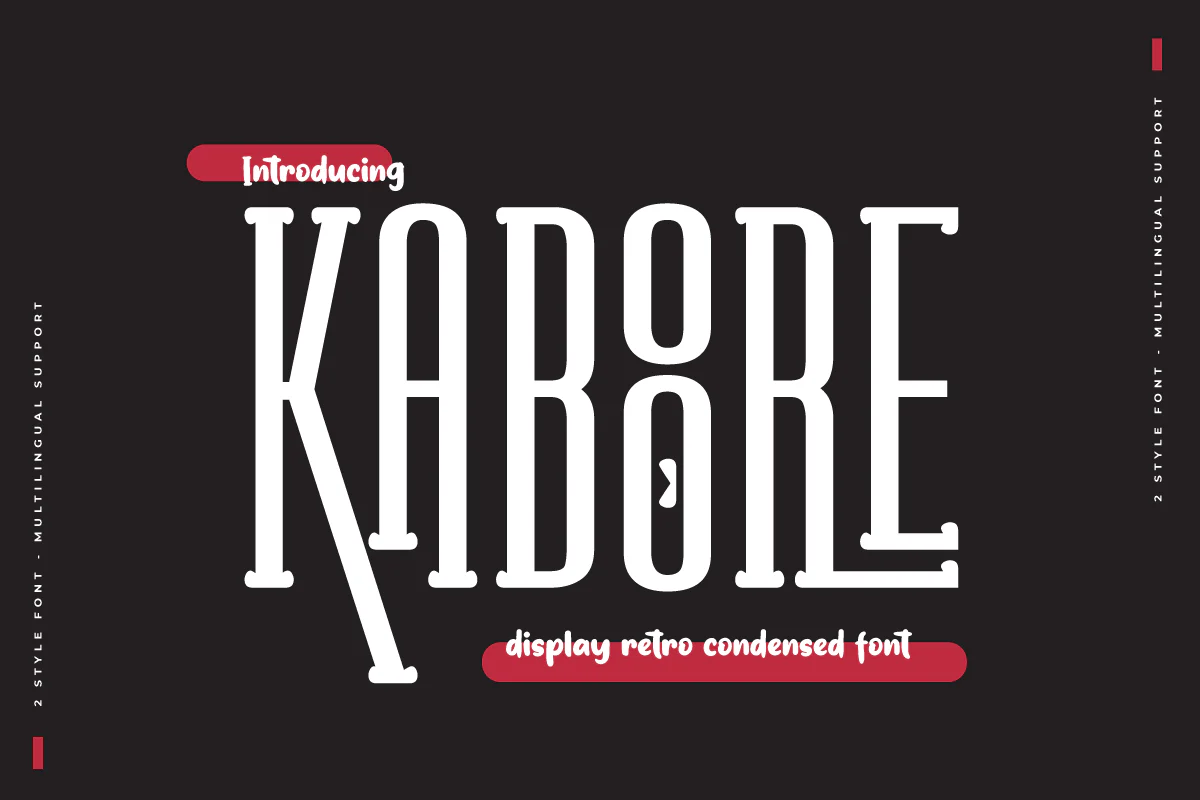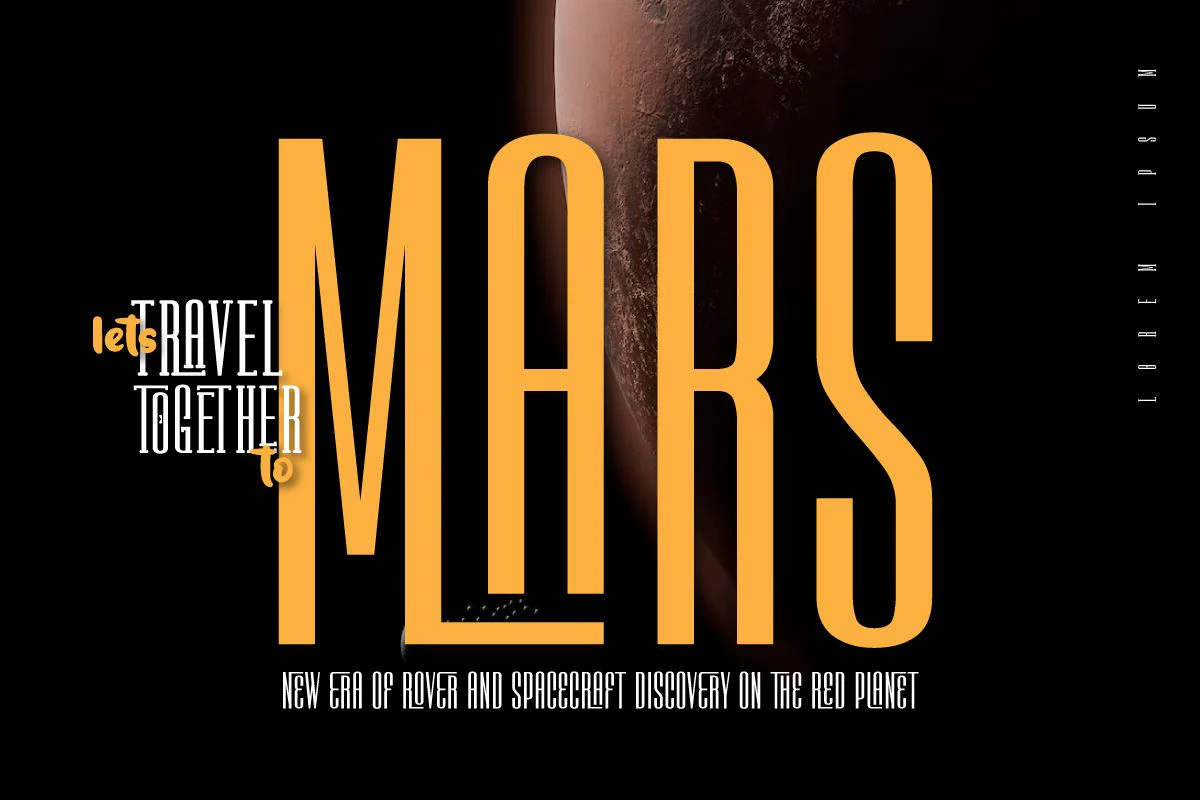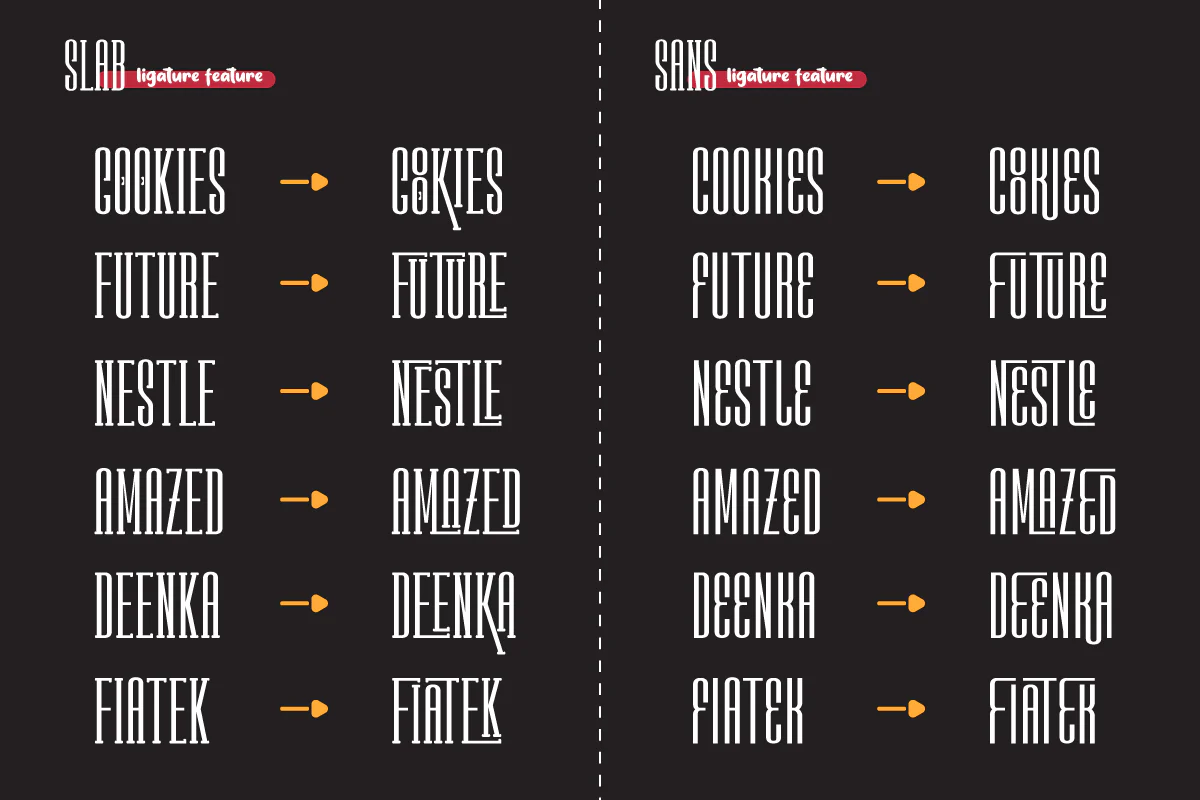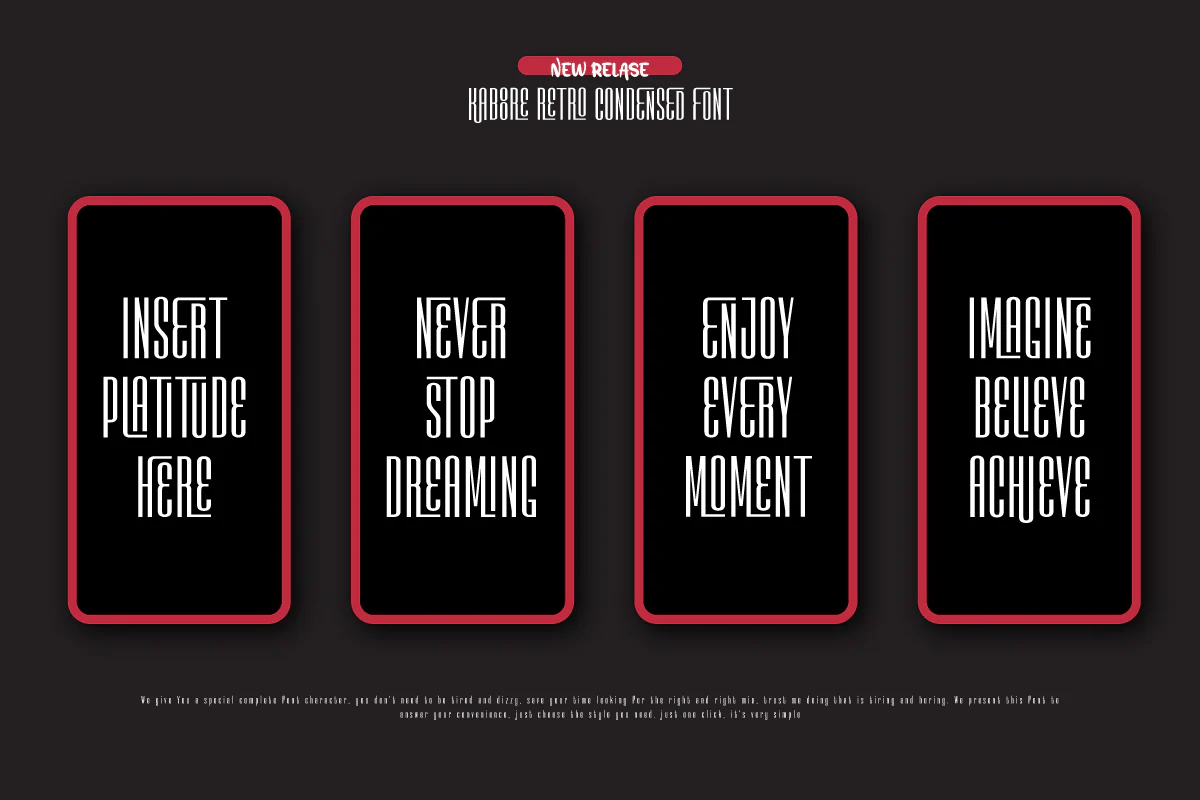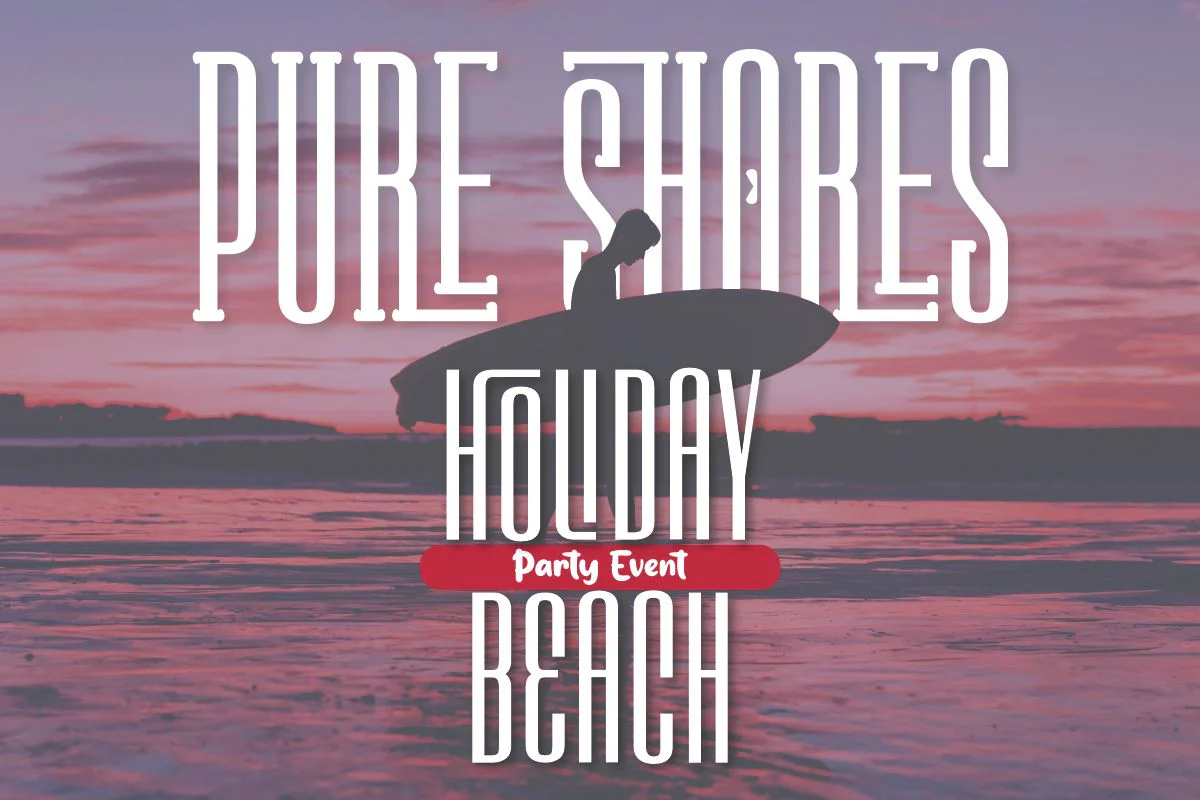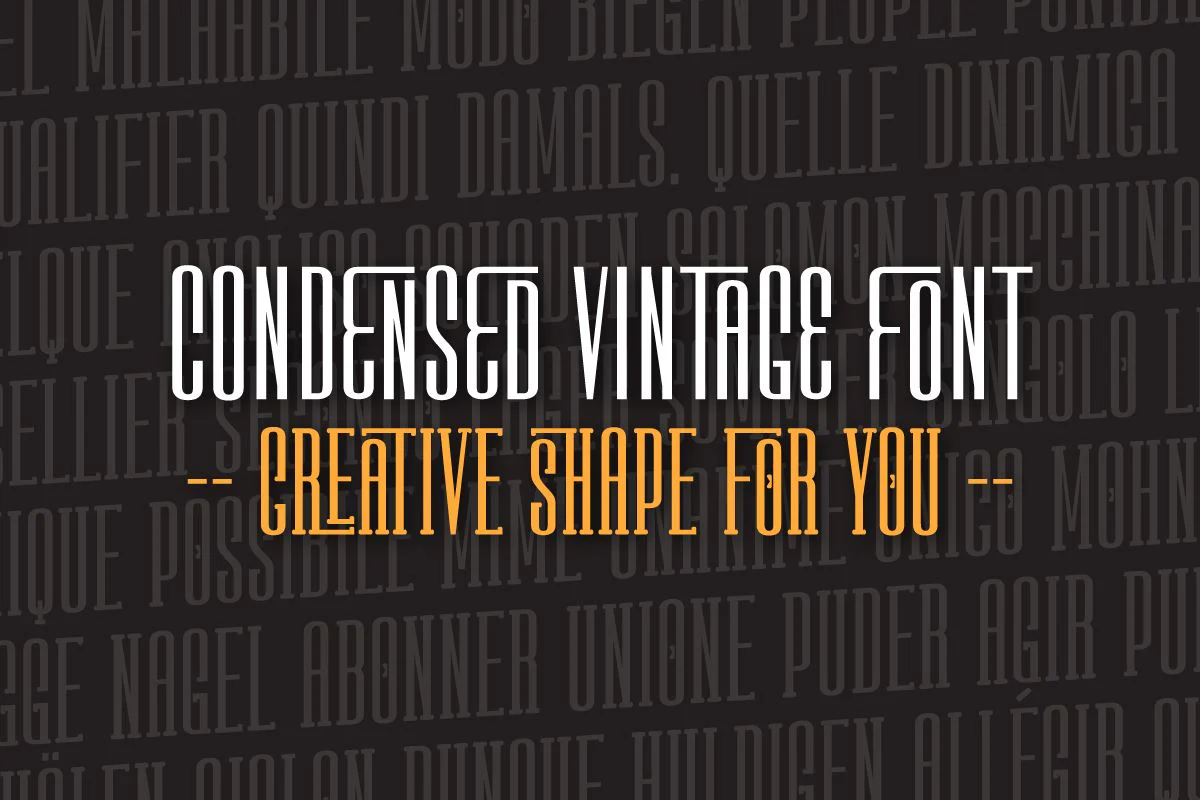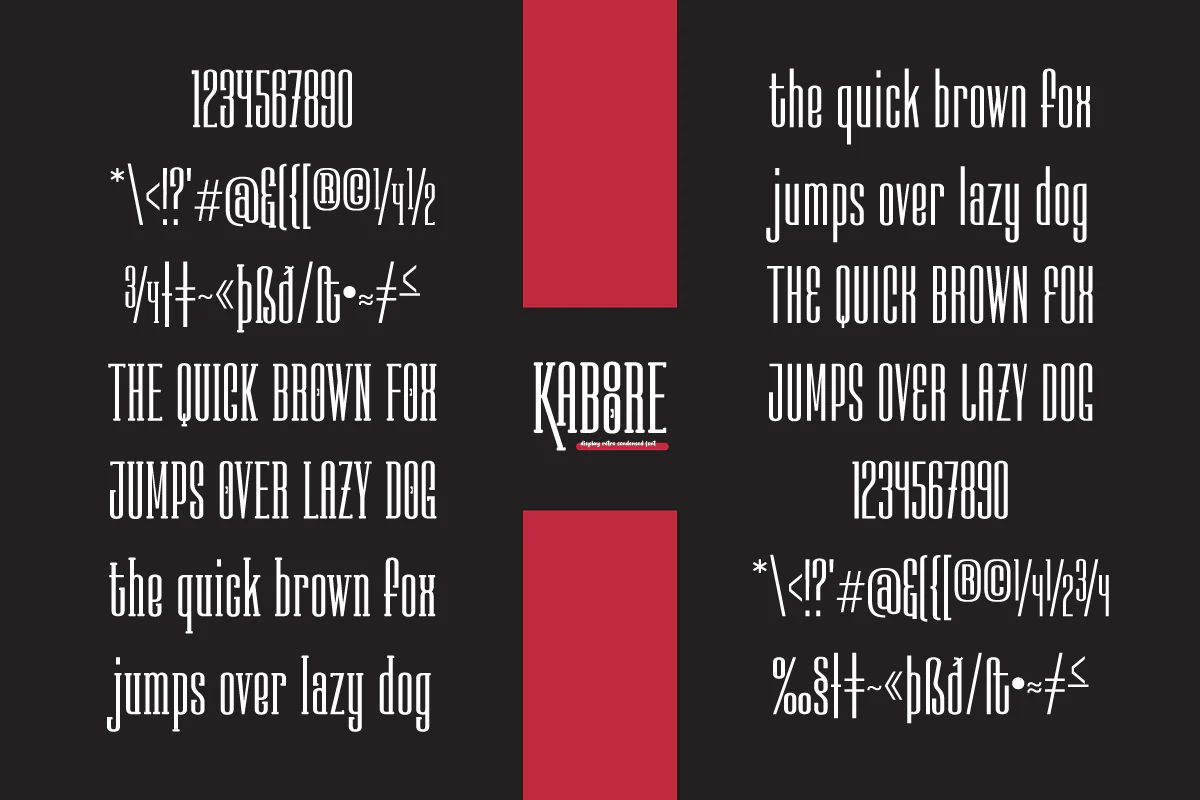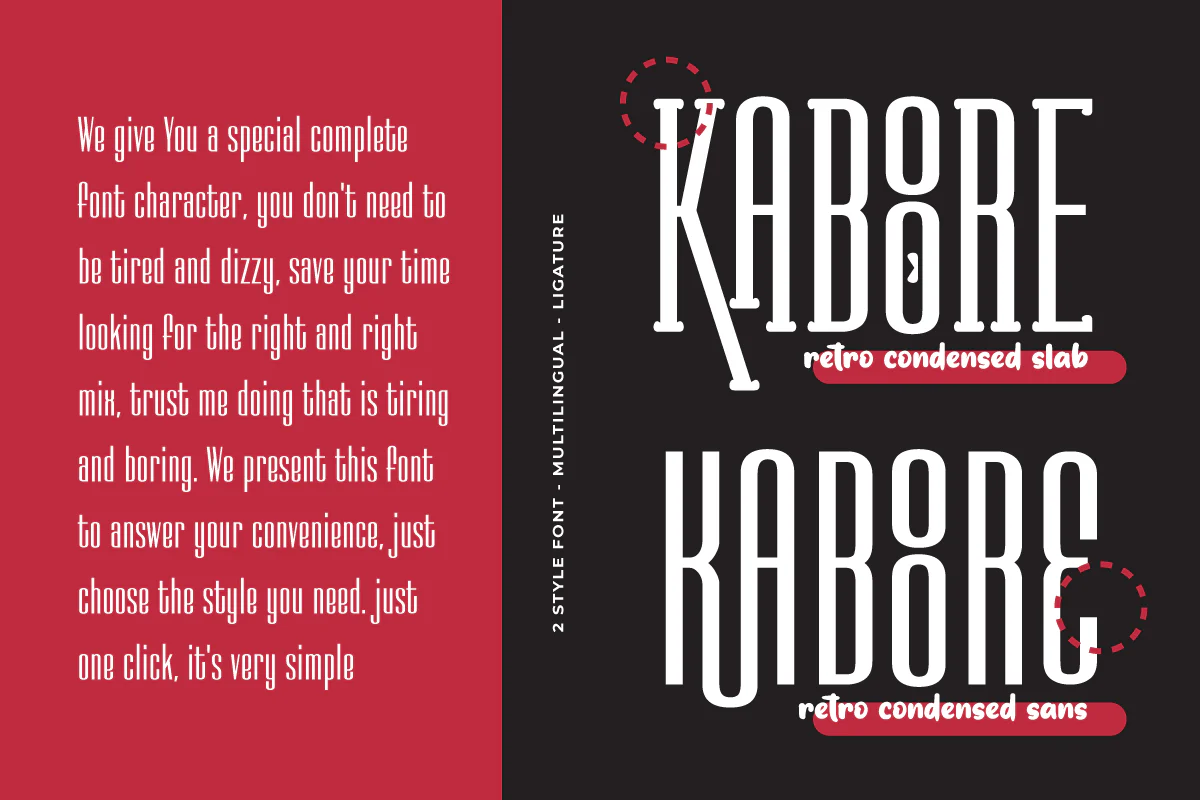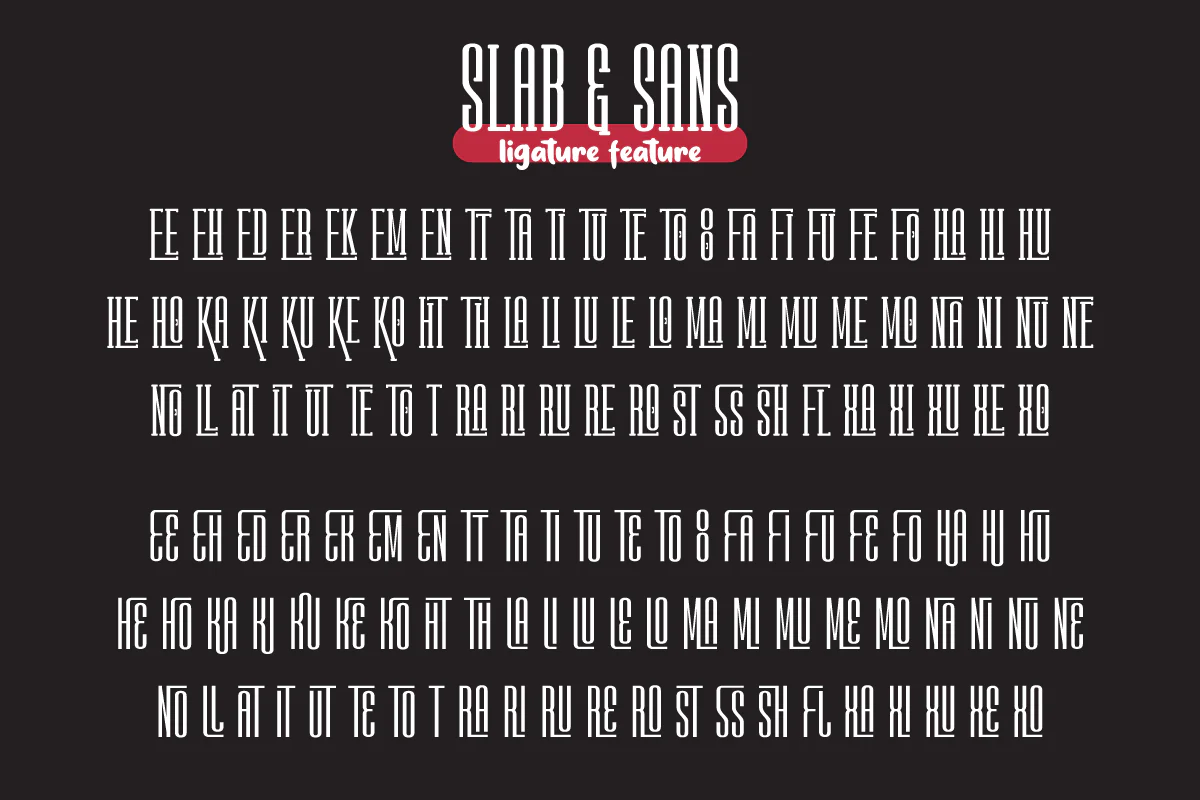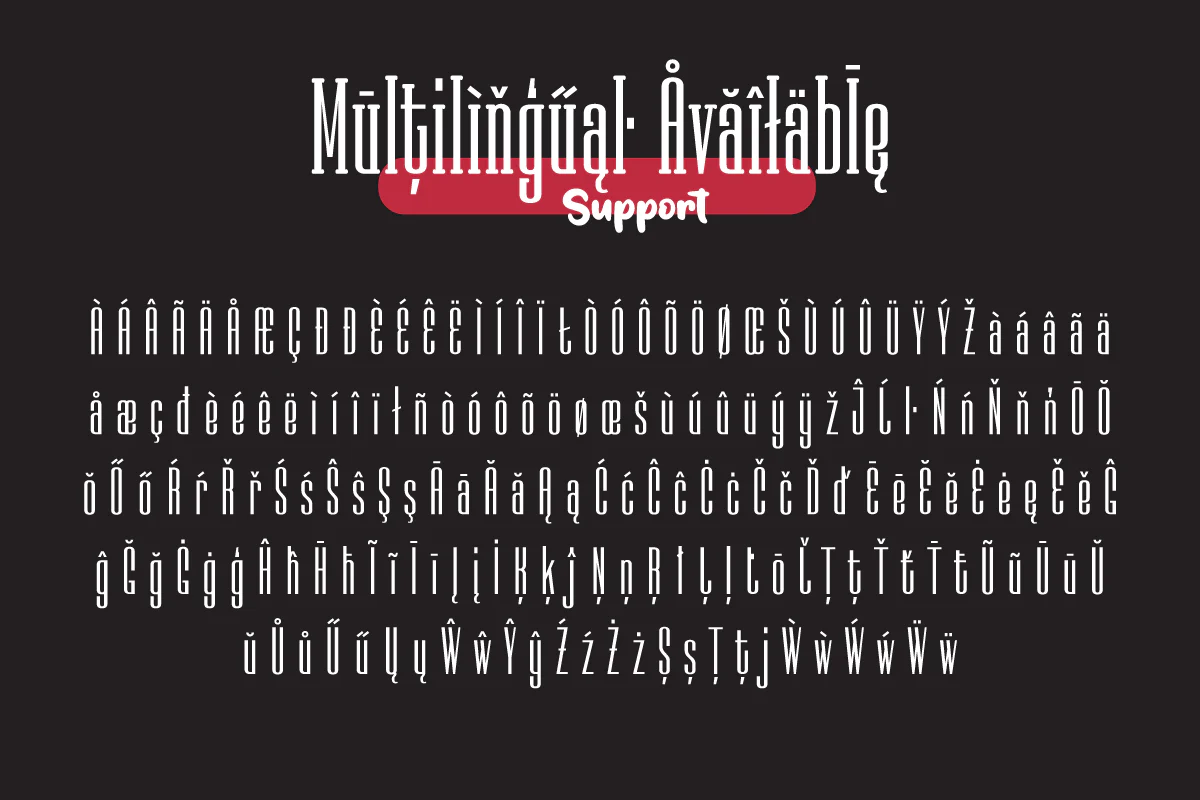
KABOORE | Retro Condensed Font
Introducing our newest font Kaboore, a retro condensed themed font, is a clean and modern typeface that gives off a strong, unique, and clean impression. Its thick, sturdy appearance is perfect for creating attention-grabbing titles and headlines. it is slightly compressed so it works well in medium or large font sizes while maintaining legibility.
This Kaboore font is designed with 2 styles in the form of the slab and sans, also enriched with optional ligatures, so use this font immediately to get your project extraordinary.
Introducing our newest font Kaboore, a retro condensed themed font, is a clean and modern typeface that gives off a strong, unique, and clean impression. Its thick, sturdy appearance is perfect for creating attention-grabbing titles and headlines. it is slightly compressed so it works well in medium or large font sizes while maintaining legibility.
This Kaboore font is designed with 2 styles in the form of the slab and sans, also enriched with optional ligatures, so use this font immediately to get your project extraordinary.